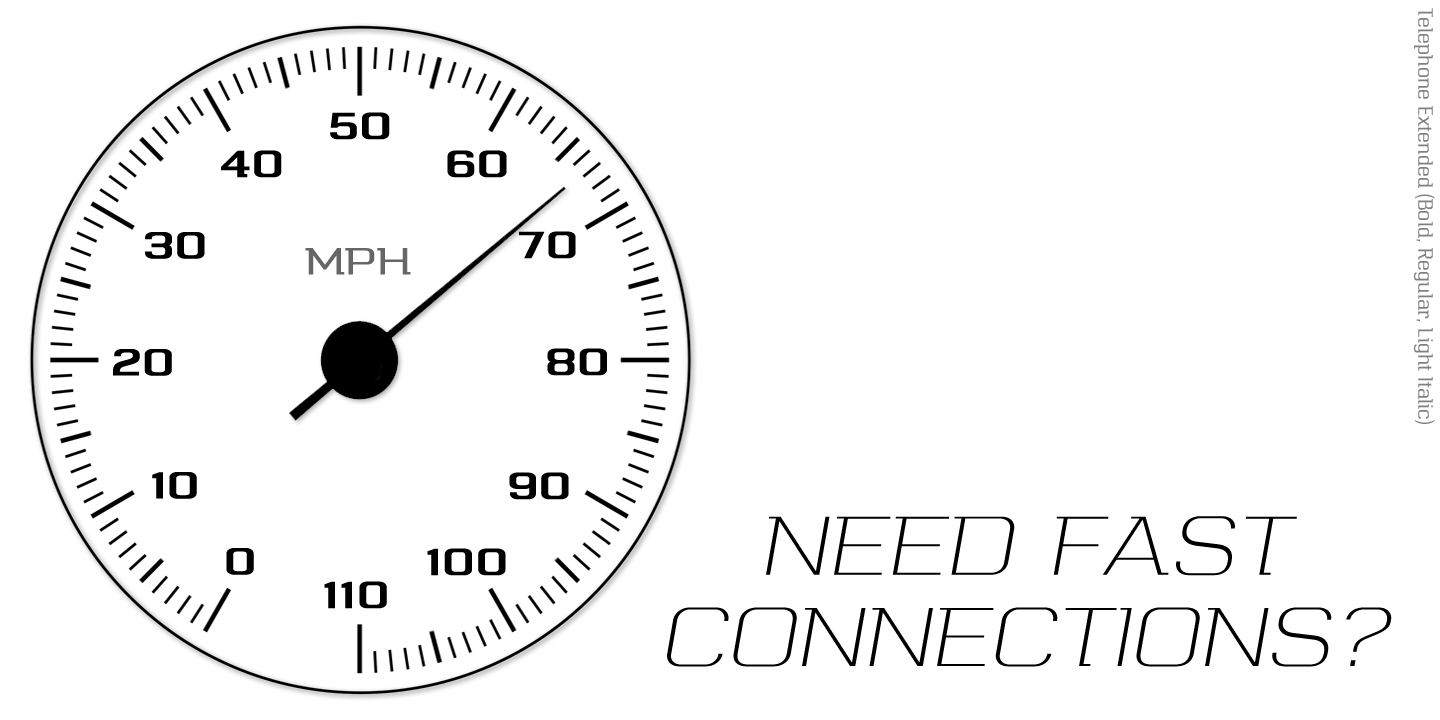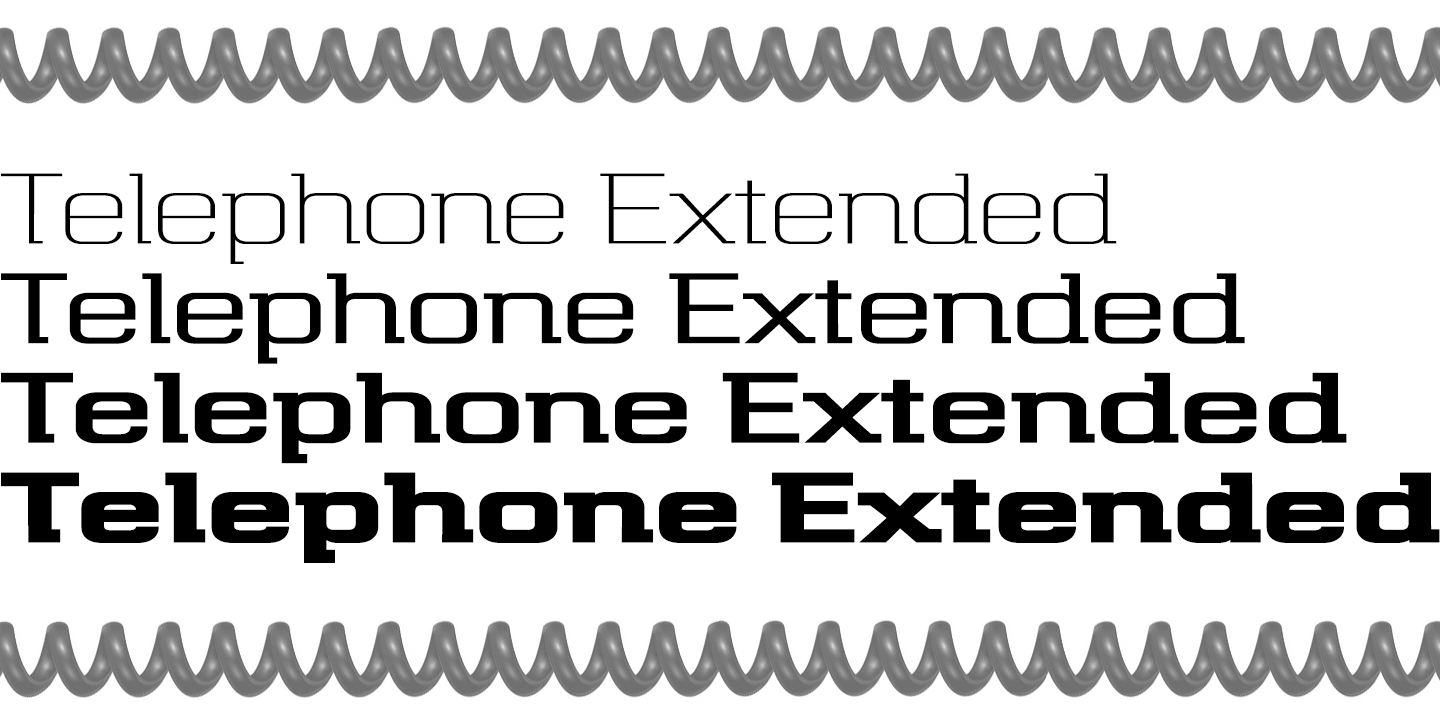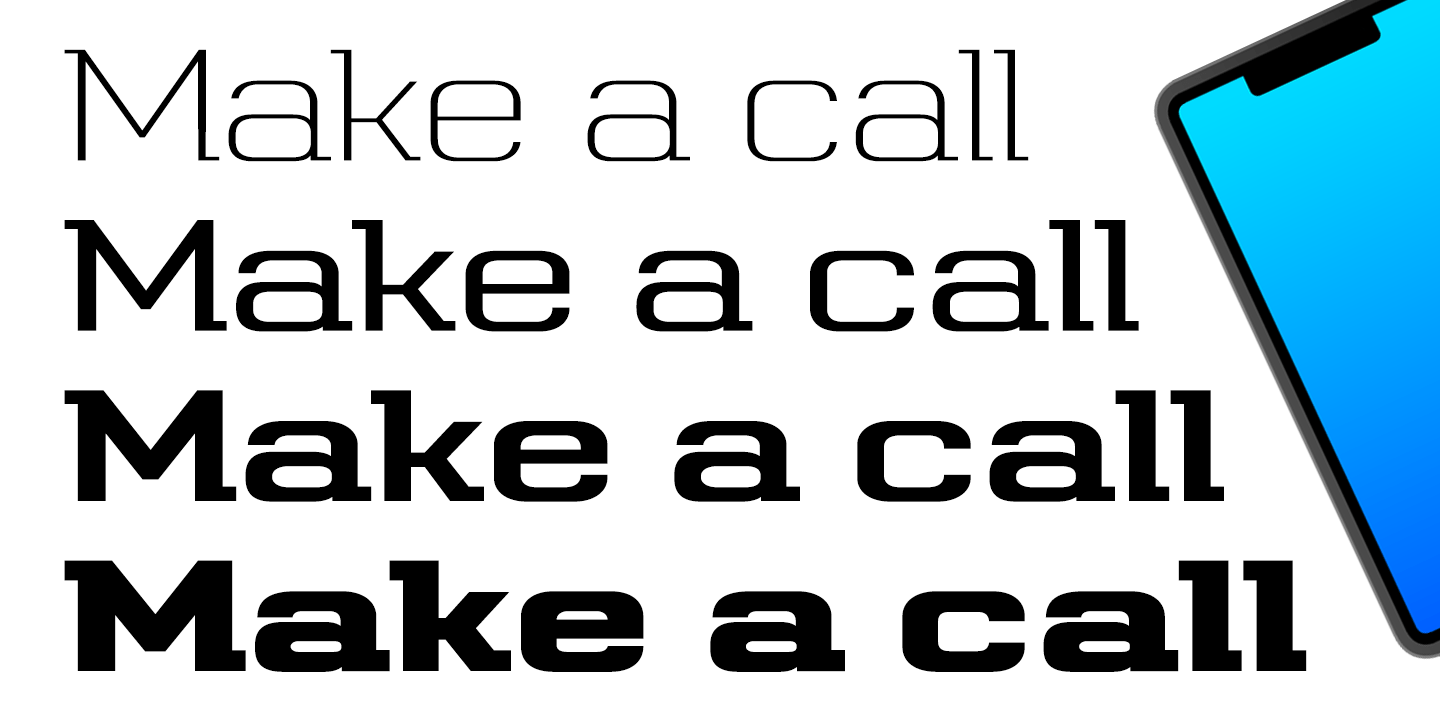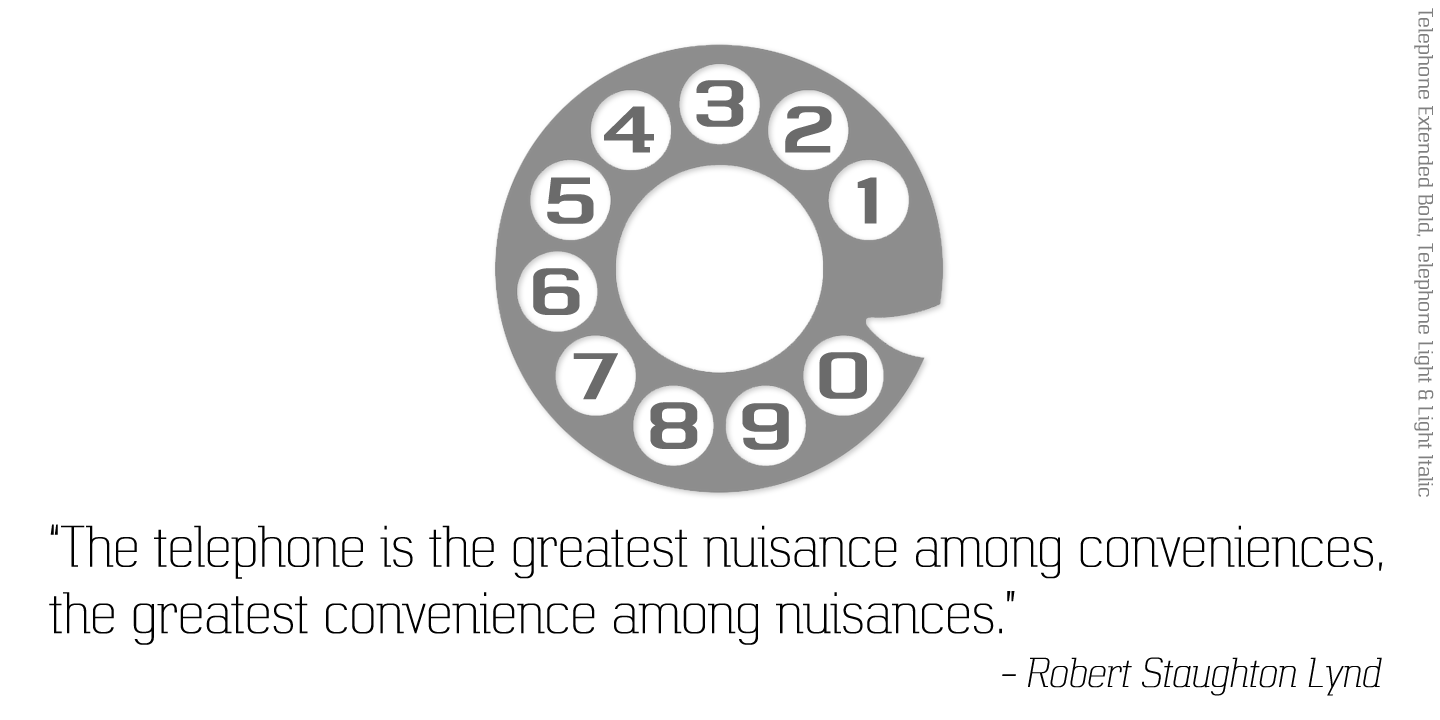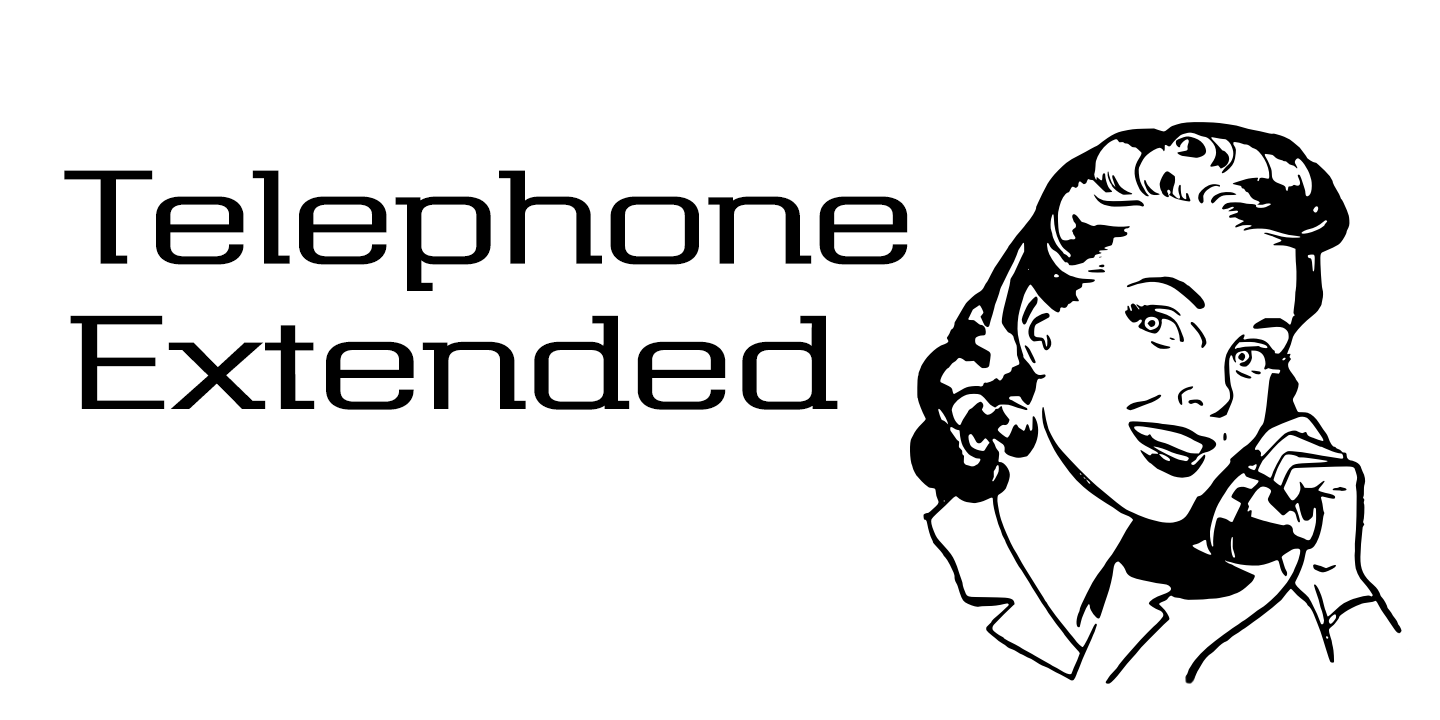
About Telephone Extended
Telephone Extended is a geometric semi-slab family with block serifs positioned to assist wordflow. The typeface evolved from an italic wordmark designed in 1966 for the British GPO by the Banks & Miles agency to publicize all-figure telephone dialling…